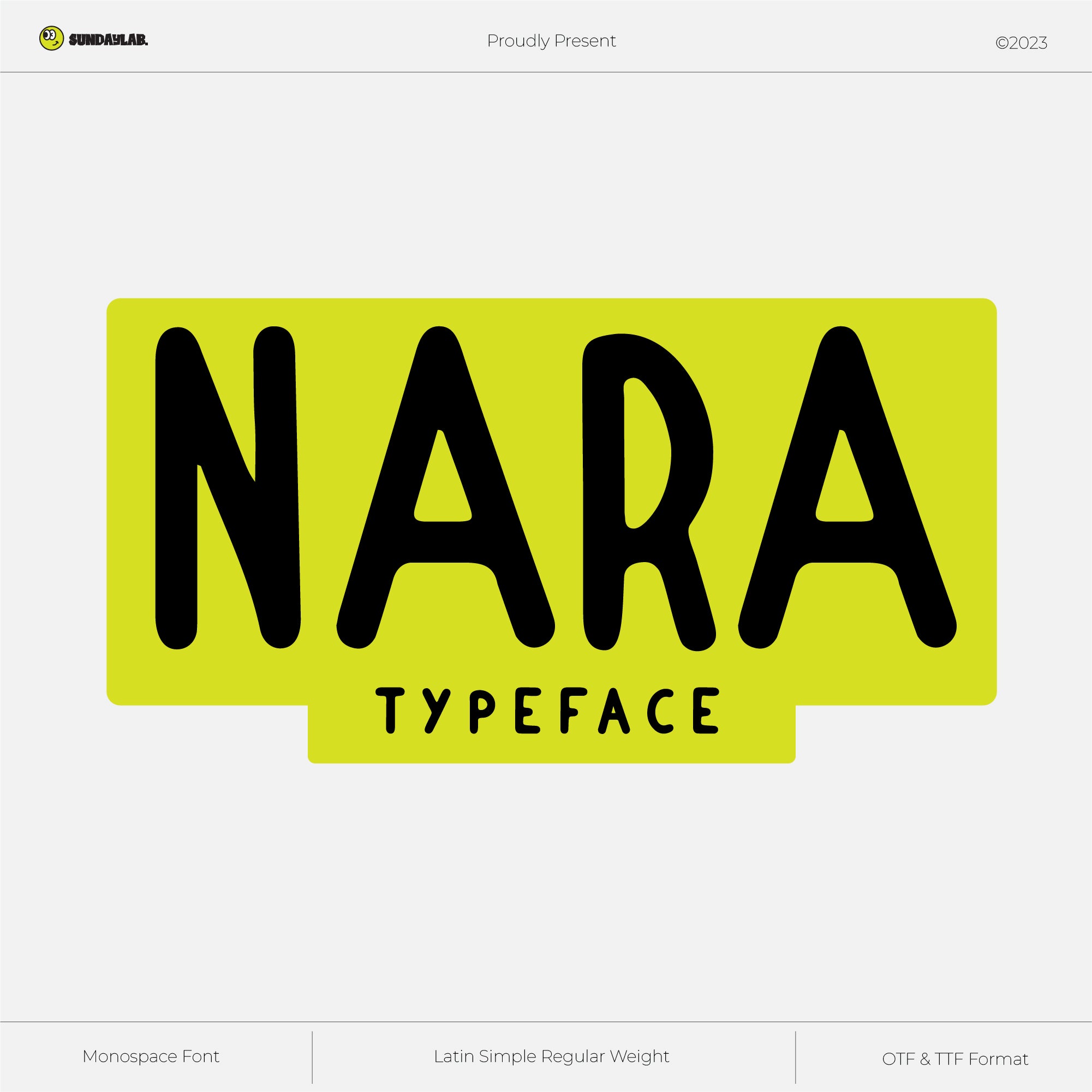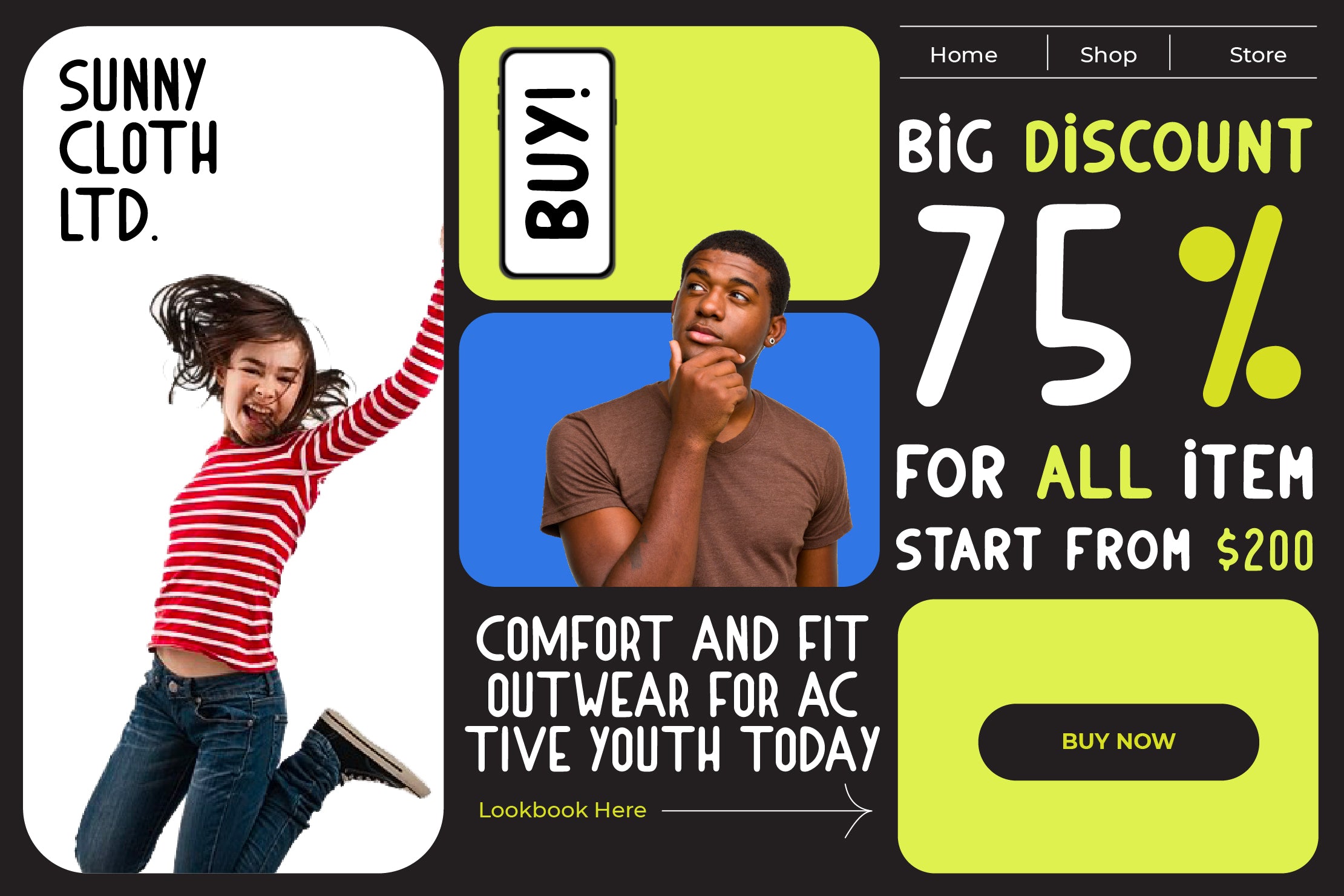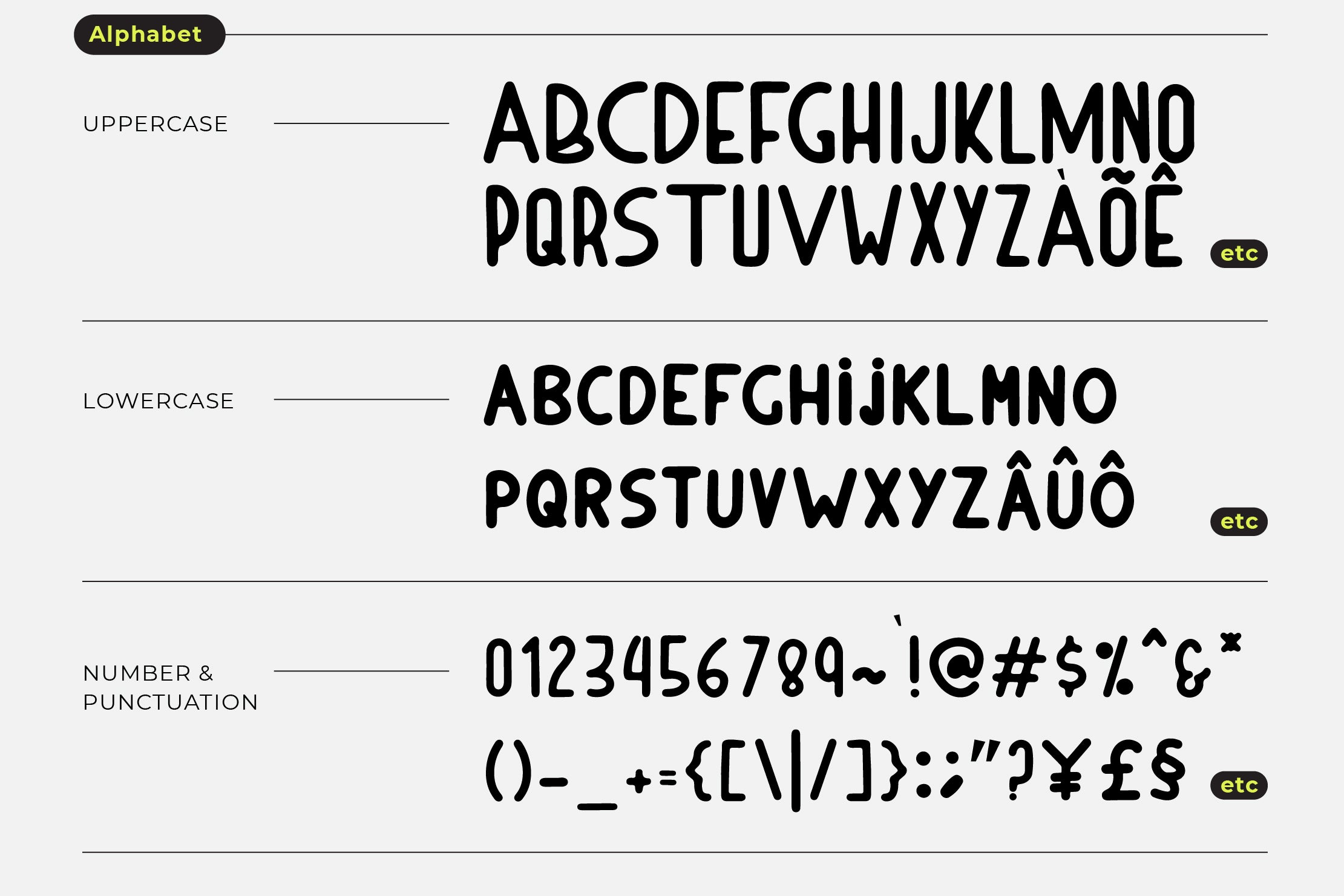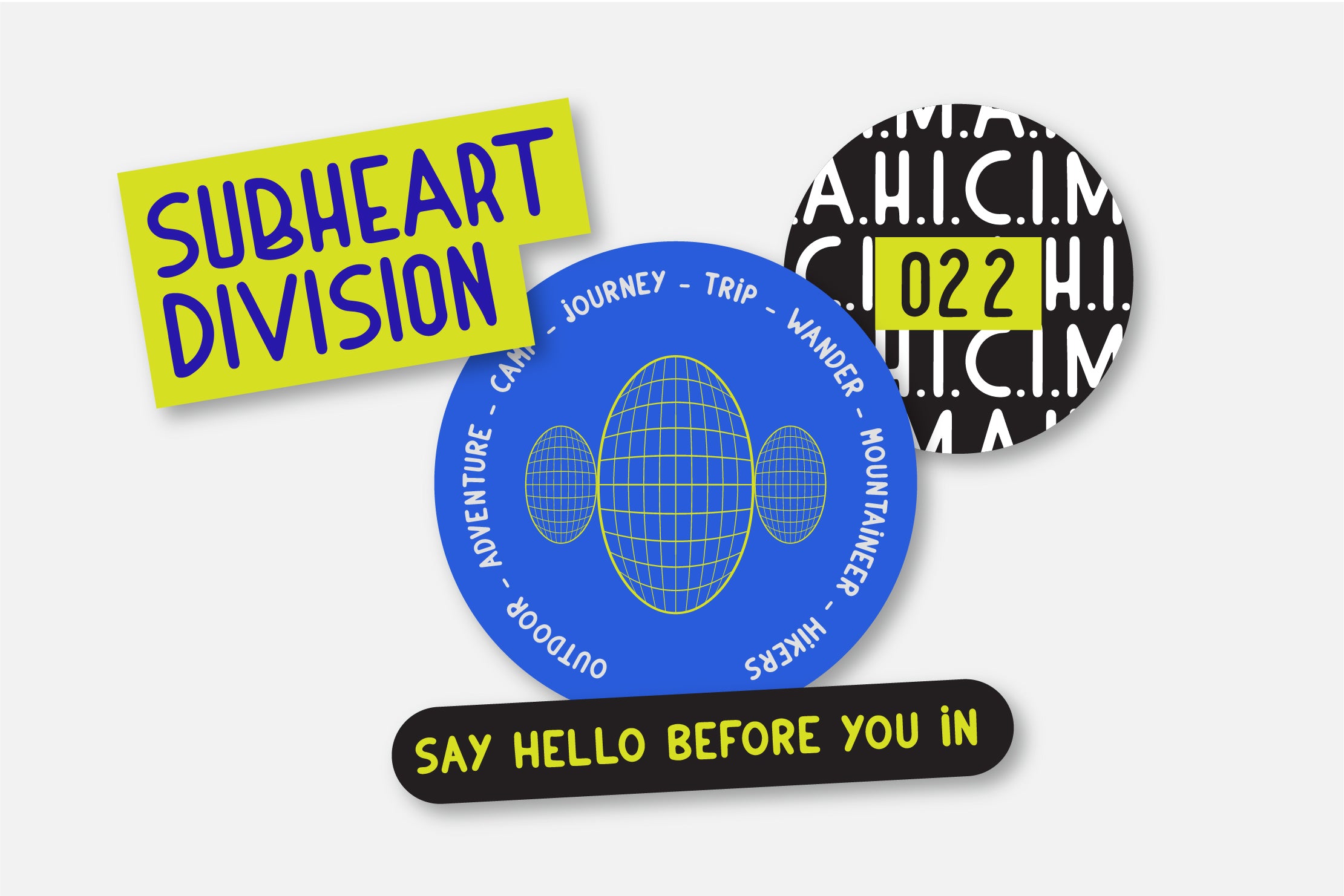
Nara Typeface
Nara is a playful rounded display typeface with a smooth monoline construction and friendly personality.
Designed with soft curves, rounded terminals, and a slightly condensed character, Nara creates a casual yet distinctive visual style that works beautifully across branding, advertising, packaging, editorial layouts, posters, social media graphics, and more.
Its clean and approachable letterforms make it easy to combine with modern sans-serif fonts while still giving headlines and short messages a unique handcrafted feel.
Whether you're designing a youthful brand identity, fashion campaign, product packaging, promotional artwork, or eye-catching social media content, Nara brings a warm and playful character to your typography.
Nara Typeface is a rounded display typeface featuring smooth monoline construction and soft curves, designed for a friendly visual style. It includes both .otf and .ttf files, providing versatile options for various design applications.